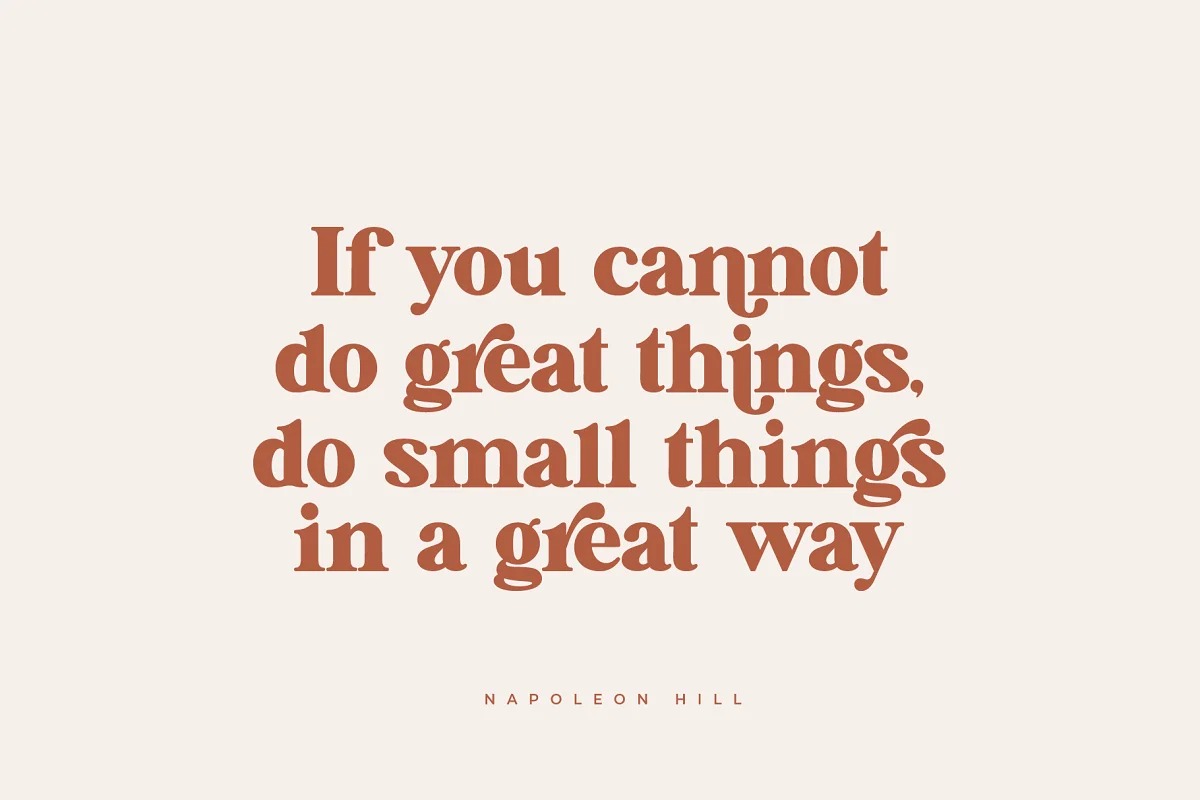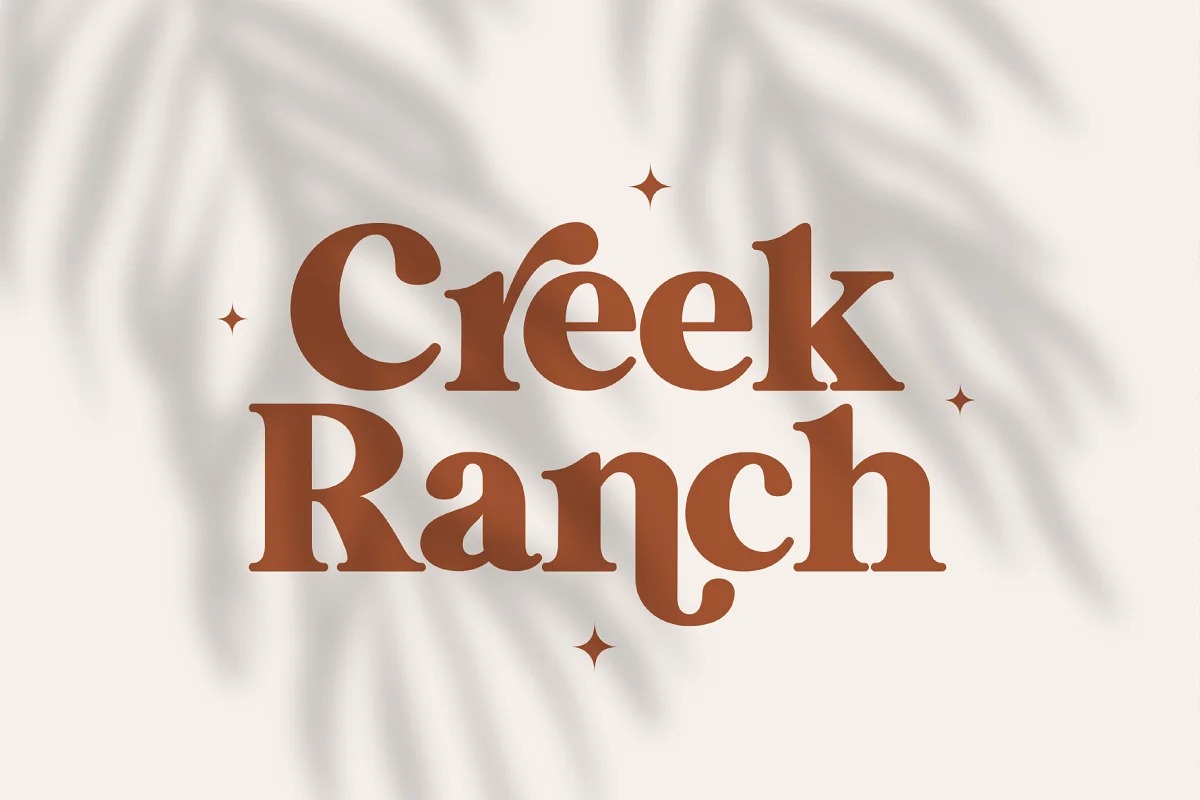
Waldorf Astoria Serif Font is a serif typeface inspired by the vintage retro national travel arts and printings from the 60s and 70s eras back in the day. With a combination of modern and vintage this font will be suitable for your design needs both for branding, logos, packaging, magazine imagery, posters, wedding invitations, advertising, as well as other modern or vintage projects.
Waldorf Astoria